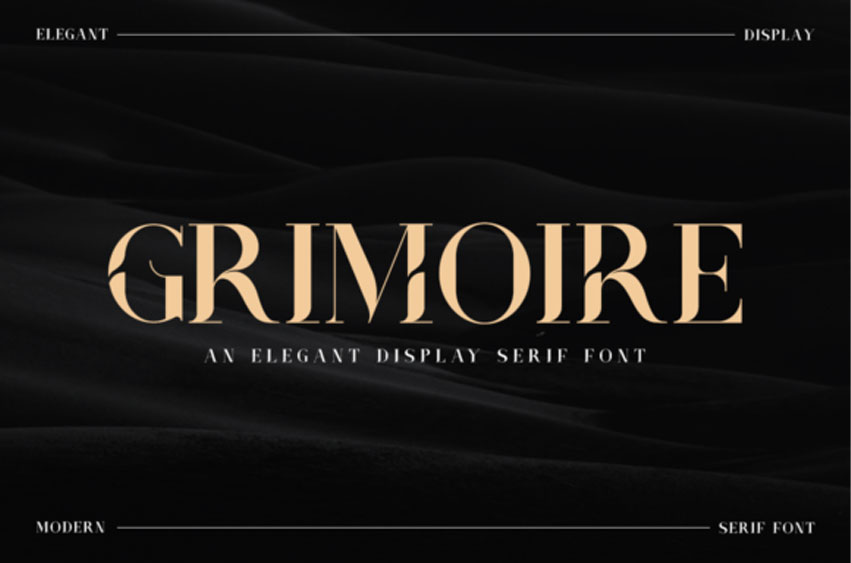
Grimoire Font
Grimoire Font is a stylish and elegant serif font. Fall in love with its incredibly distinct and timeless style and use it to create spectacular designs!